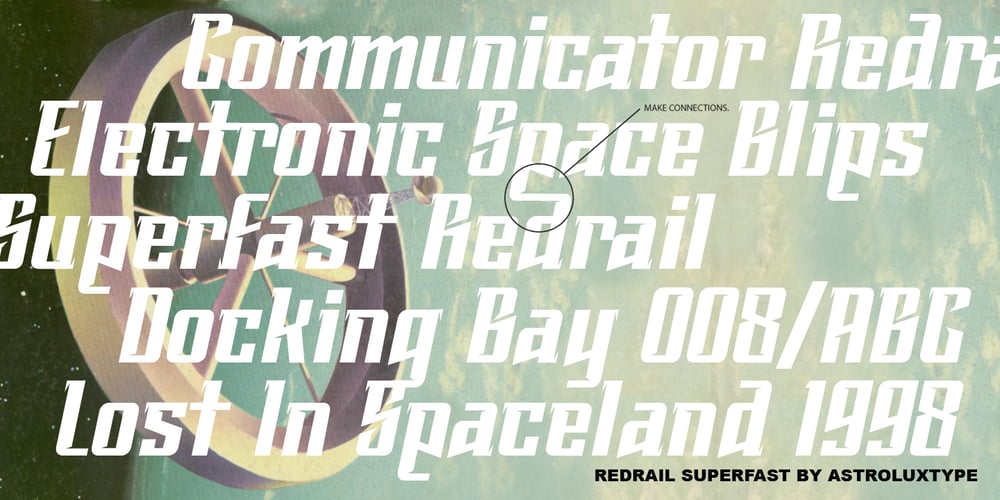
Redrail Superfast
Redrail Superfast font
Redrail Superfast Font Family was designed by Glenn Parsons and published by astroluxtype. Redrail Superfast contains 1 styles and family package options. Bold mutant typography. Retro-futuristic. Sixties meets 1990’s comic book inspired, superfast for your superhero? The pencil tissue was dragged out from the very back of the file cabinet, stuck in the metal rail, it was lost then found- to bring a unique look to your project. A companion font to astroluxtype’s Spacepod, both fine ways to mark and identify your spacecraft. Note the lowercase letterforms that make connectors such as g, j, y, b, d and g. See the posters at myfonts.com for examples of how to you might use this feature. Redrail Superfast is a minimal glyph set which can be used at various sizes, we consider it a headline/display font and best applied larger than 36 points in size.